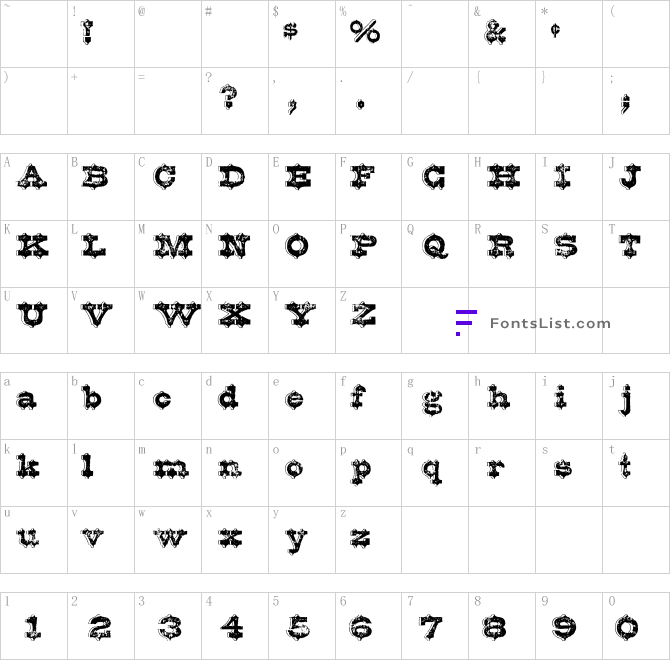
- Font Name:Bear Gulch WF
Bear-Gulch-WF.ttf is a very beautiful artistic font, Bear-Gulch-WF.ttf is widely used in the design and printing of various books and pictures,Bear-Gulch-WF.ttf has a strong visual impact,Bear-Gulch-WF.ttf is a commonly used font in newspapers, magazines and books, and is used in posters, e-commerce Poster design, store design, logo design, font design and other fields.Bear-Gulch-WF.